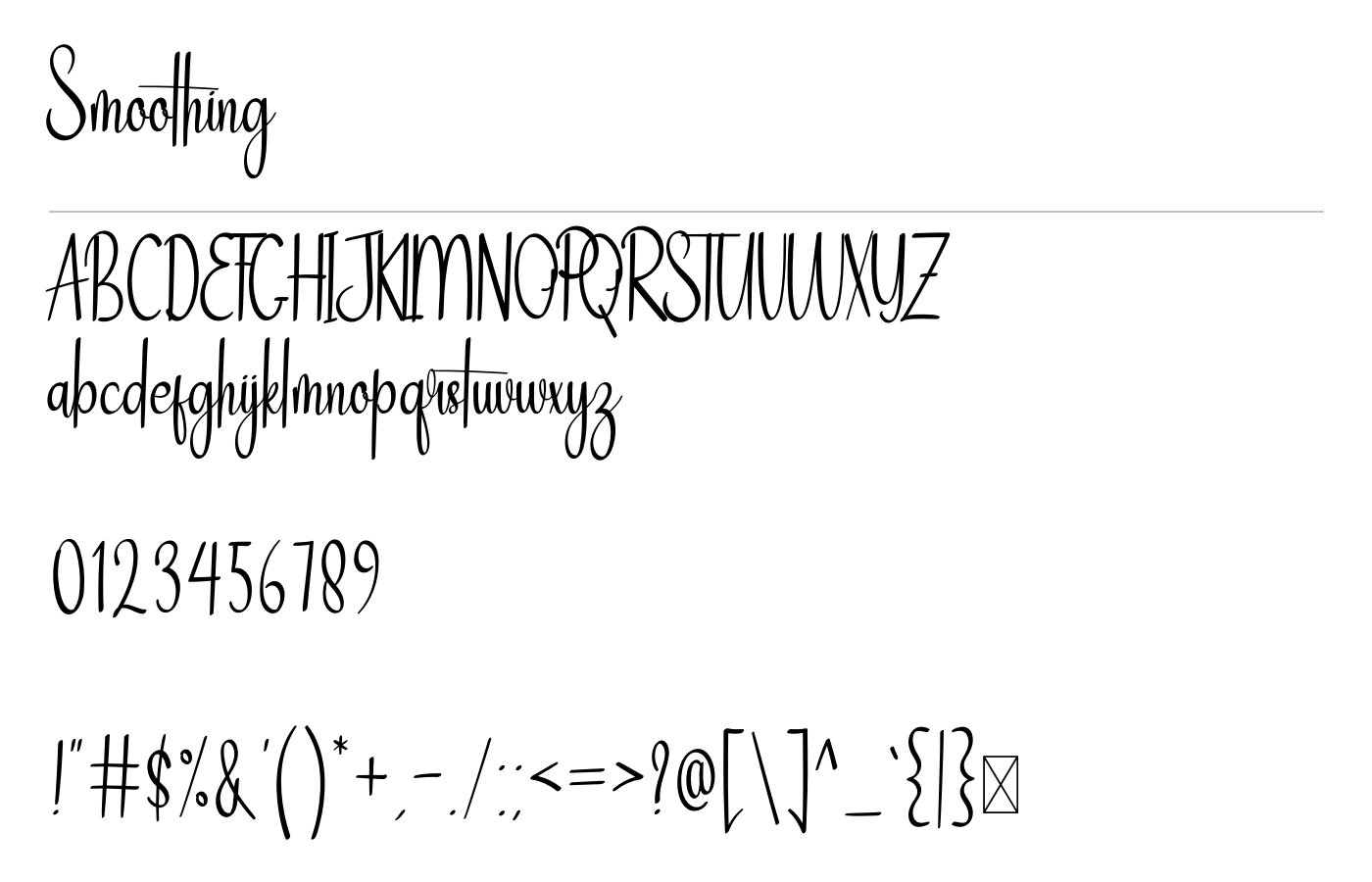
Smoothing Font is a tall, slender script-style typeface with a handwritten feel, featuring delicate, narrow strokes and a playful yet elegant character. Its unique elongated letterforms and moderately high x-height make it ideal for creative, informal branding and stylish headlines that require personality and grace. This font works best in invitations, logos, and decorative designs where a touch of sophistication and warmth is desired.
Smoothing Font
About Smoothing Font